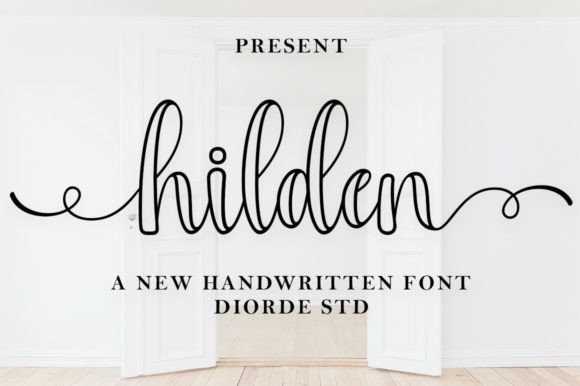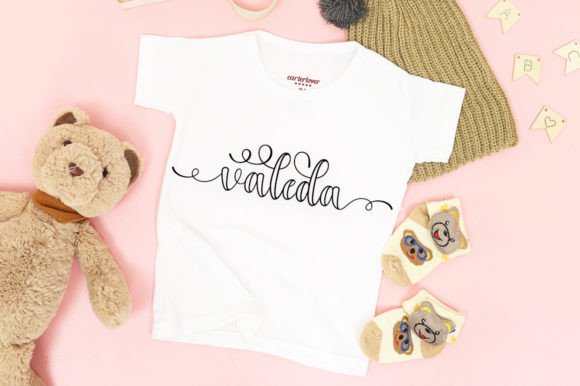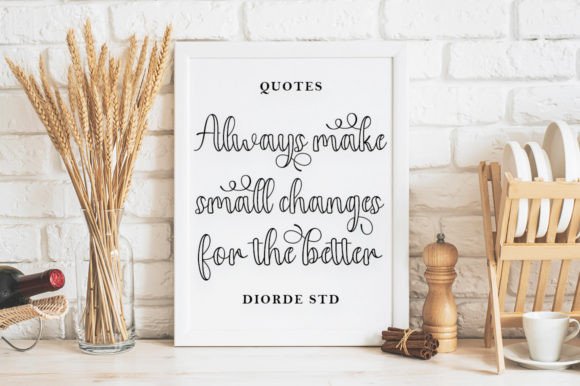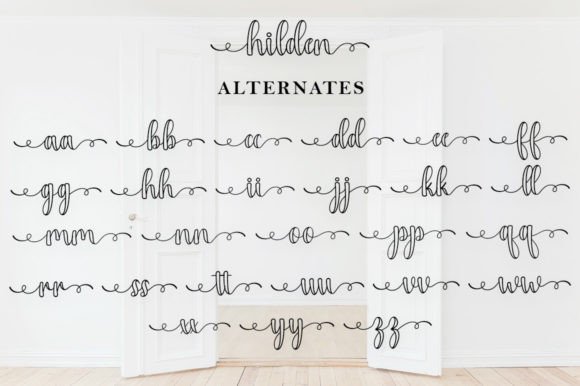
Hilden Outline Font: Cute Handwritten Font for Cricut & DIY Projects
About the Hilden Outline Font
Let us introduce you to Hilden Outline Font, where timeless design meets modern craftsmanship. Hilden Outline is a cute, versatile, and flexible handwritten font. Warm, romantic, and jovial, this font will turn any of your project ideas into real works of art.
Hilden Outline’s playful, yet refined, personality makes it ideal for headlines, short-form text on packaging, and branding elements requiring a touch of whimsy. It works particularly well in projects related to food, fashion, or children’s products. However, its delicate outlines aren’t suited for body text or UI elements where readability is paramount; small sizes lose legibility.
For optimal pairings, consider a clean sans-serif like Open Sans for body copy to balance Hilden Outline’s hand-drawn charm, or a classic serif such as Garamond for a more traditional feel. A geometric sans-serif, like Montserrat, can provide a contemporary contrast, creating a dynamic juxtaposition. Avoid pairing it with other script fonts, as this might create visual clutter.
Its overall aesthetic is best described as friendly and approachable, with a hint of vintage charm. This makes it unsuitable for projects demanding serious or corporate branding, but perfectly suited for creating a warm and inviting atmosphere.
Hilden Outline Font Usage Examples
Hilden Outline Font Example